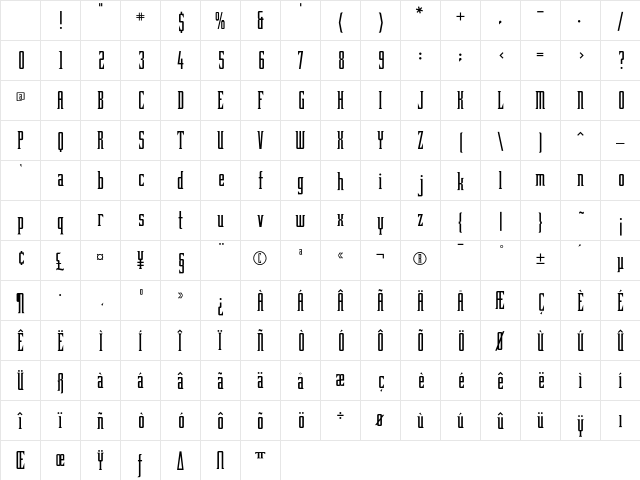
Complete BubbaLove Medium glyph index. Displaying only characters natively supported by BubbaLove Medium font.
BubbaLove is a composed and adaptable typeface that performs quietly and consistently across a wide range of design contexts.